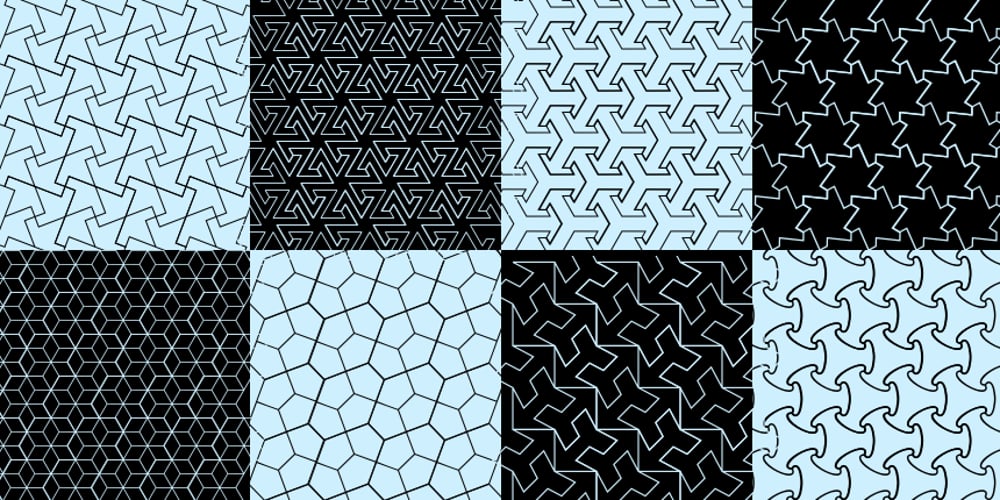
Tessie Dingies
Tessie Dingies font
Tessie Dingies Font Family was designed by Robert Schenk and published by Ingrimayne Type. Tessie Dingies contains 2 styles and family package options. A tessellation is a shape that can be used to completely fill the plane–simple examples are isosceles triangles, squares, and hexagons. The TessieDingie fonts contain tessellation shapes that can be used to construct tessellation patterns. The repeating unit, which may contain only one of the shapes or a several of the shapes, is on one key so making patterns is trivial with these fonts. TessieDingieAbstract contains abstract shapes that tessellate. TessieDingiePictures contains shapes that resemble real world objects, such as birds, animals, tools, and vehicles. Make sure the leading is the same as font size or the rows will not line up. Tessellation patterns are eye-catching and visually appealing, which is the reason that they have long been popular in a variety of decorative situations, such as quilting.